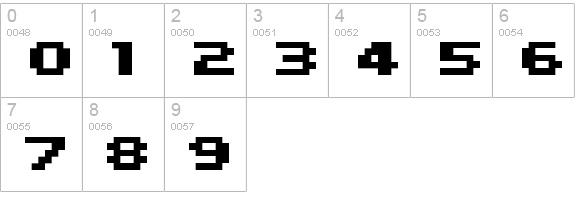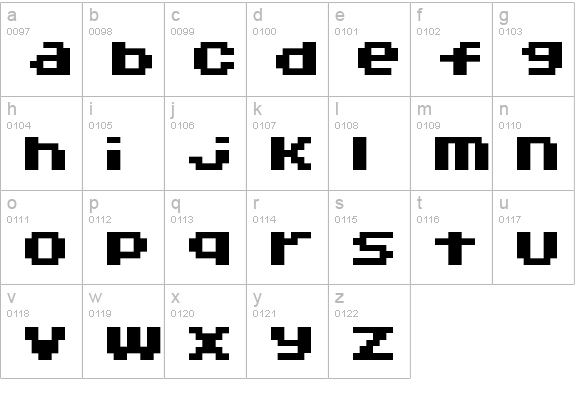
04b_11 Font Details
04b_11 font is a modern, sleek typeface that exudes a sense of simplicity and sophistication. Its clean lines and geometric shapes make it perfect for a wide range of design projects, from logos to web graphics to printed materials. The font's bold and striking appearance is sure to make a statement and capture the attention of viewers. What's even better is that 04b_11 font is completely free to download at FontsMarket.com. This means you can easily access this stylish font without having to worry about any costs. Whether you're a professional designer looking for a new addition to your font collection or a hobbyist experimenting with typography, 04b_11 font is a versatile choice that will elevate your designs to the next level. Download it today and start creating stunning visuals with this amazing free font.